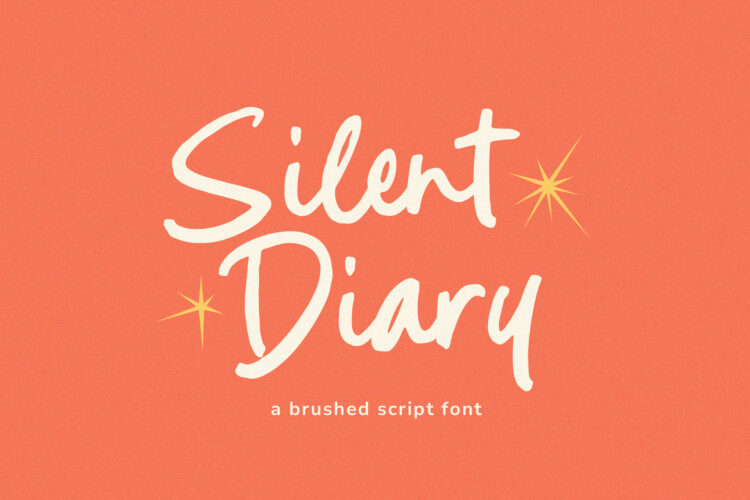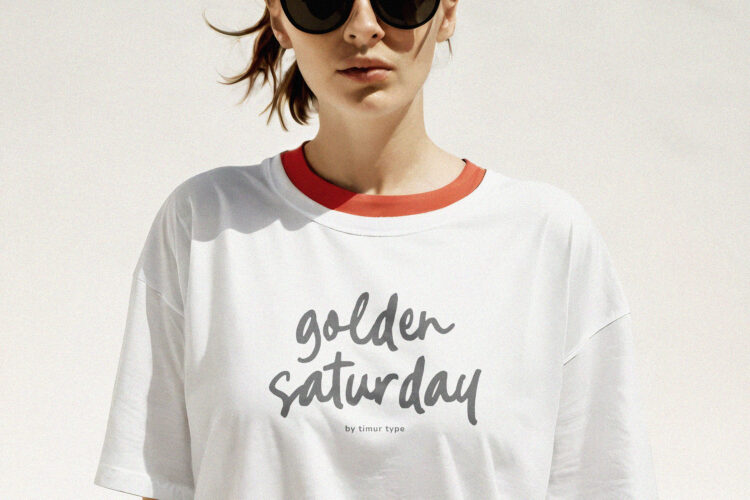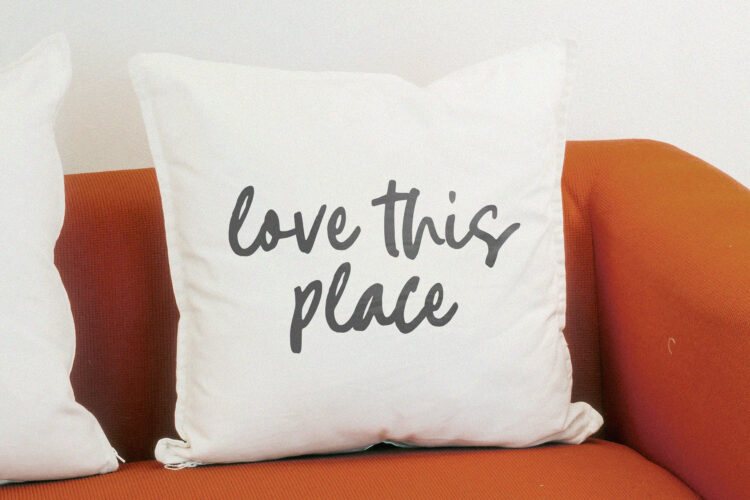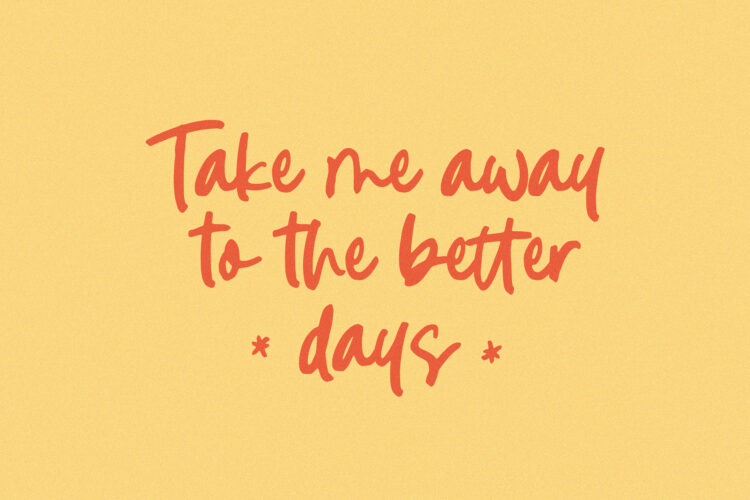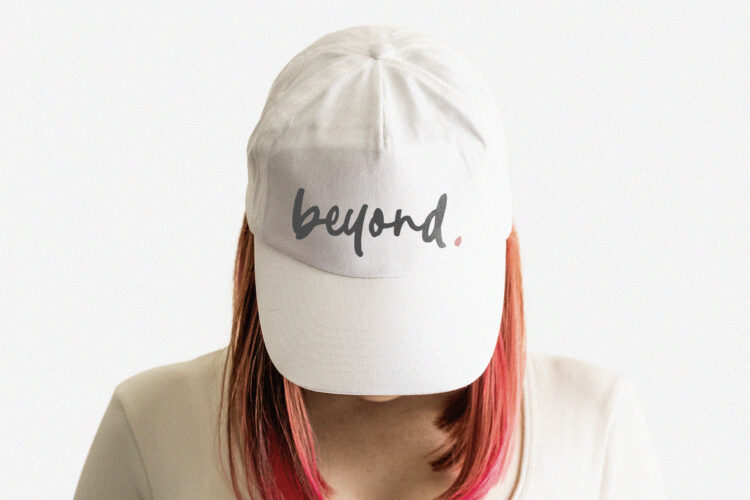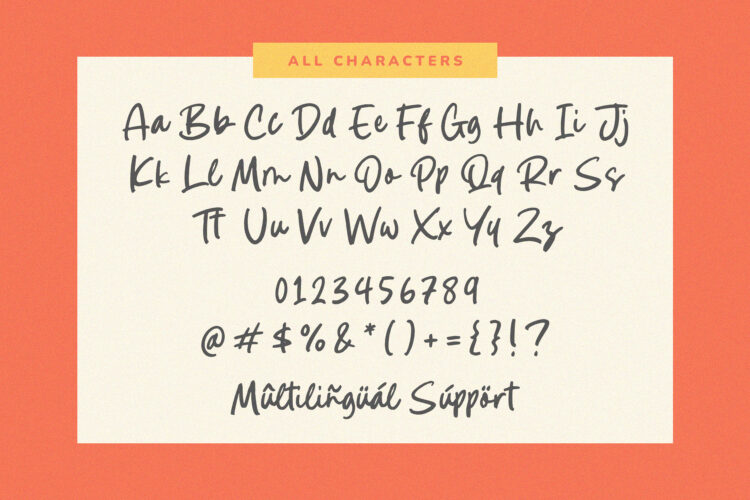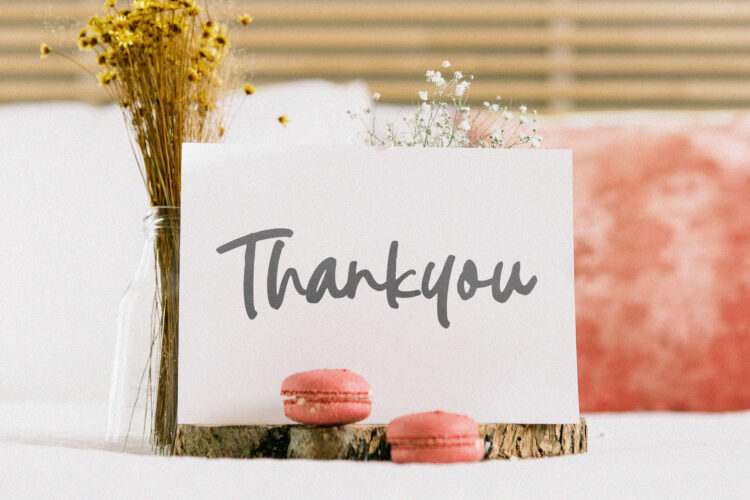
Silent Diary is a Brush Script Font
This font is a modern brush script font that blends the expressive feel of handwritten lettering with a soft, diary like aesthetic. It typically features smooth, flowing strokes, natural curves, and slightly irregular lines that mimic real pen or brush writing. This gives it a warm, intimate tone perfect for designs that aim to feel elegant or emotional.
Silent Diary Font also supports multilingualism